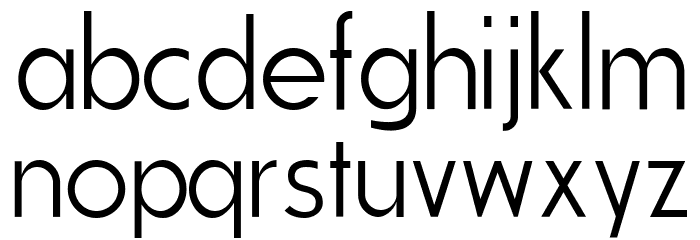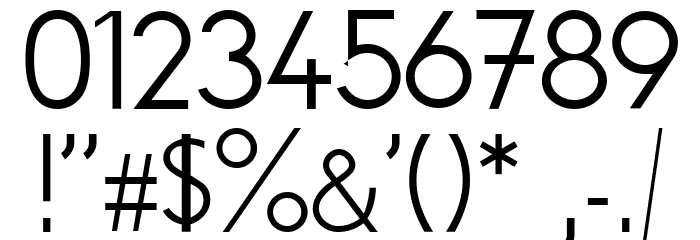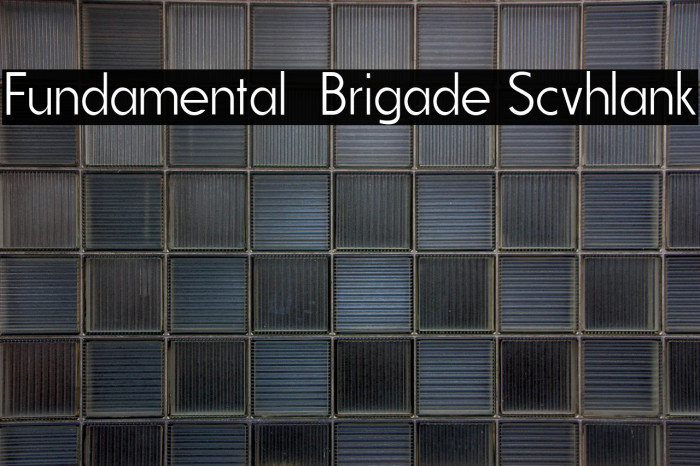
Fundamental Brigade Scvhlank Font
This font features a clean and modern sans-serif design, characterized by its geometric shapes and uniform stroke widths. The uppercase letters are bold and assertive, while the lowercase letters maintain a consistent and harmonious appearance. The numerals are clear and easily distinguishable, making them suitable for various applications. The special characters are well-integrated, ensuring a cohesive look across all text elements. Overall, this font exudes a sense of professionalism and clarity, making it ideal for both digital and print media.
A modern, geometric sans-serif font with uniform strokes and clear characters.
- Font: Fundamental Brigade Scvhlank